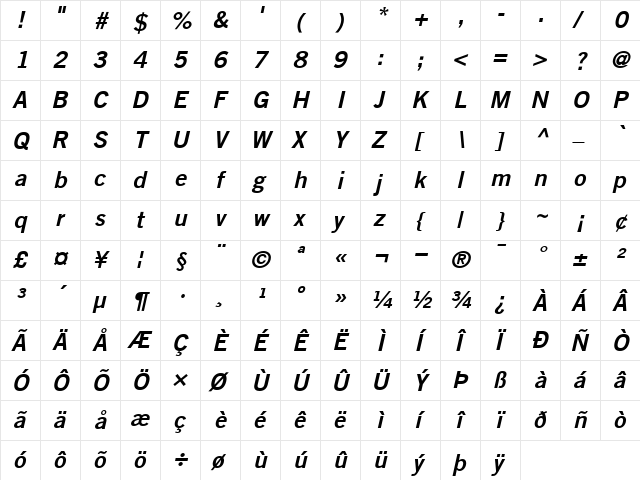
TradeGothicNo.2 BoldItalic
Design Context for TradeGothicNo.2 Typeface
TradeGothicNo.2 takes a clean, functional approach — its unadorned letterforms prioritise legibility and work reliably across screen and print environments. The dynamic lean of this cut emphasises speed and emphasis in any layout. The heavy weight commands attention and anchors typographic hierarchies.
Well-suited to navigation labels, product packaging, and anywhere legibility at scale is essential.
Font Pairing: Use TradeGothicNo.2 for headlines alongside a lighter-weight sans or serif for body copy to establish clear visual hierarchy.
Pro Tip: Use TradeGothicNo.2 for UI labels, navigation, and short-form body copy where clean legibility is the priority.